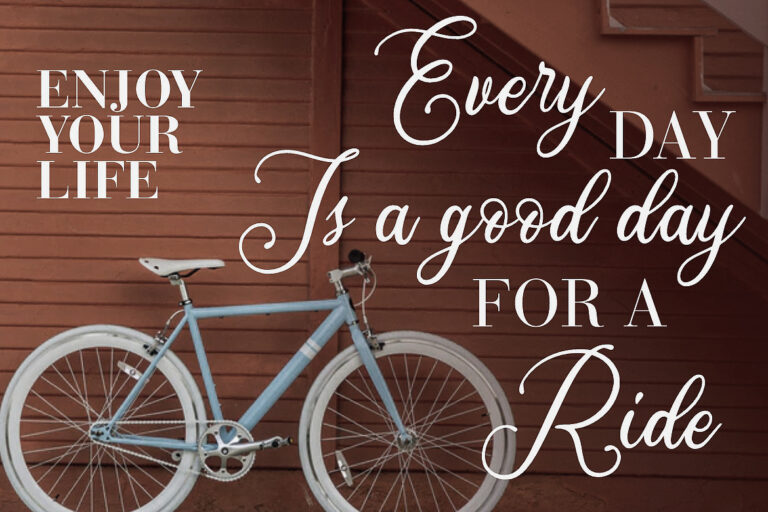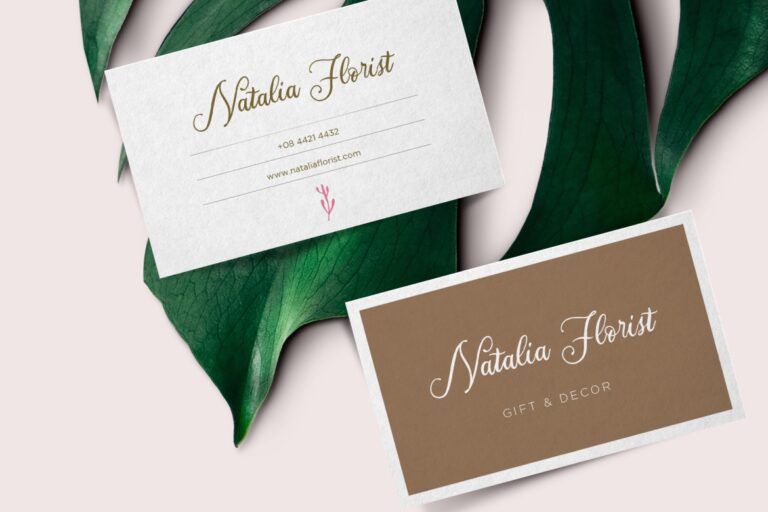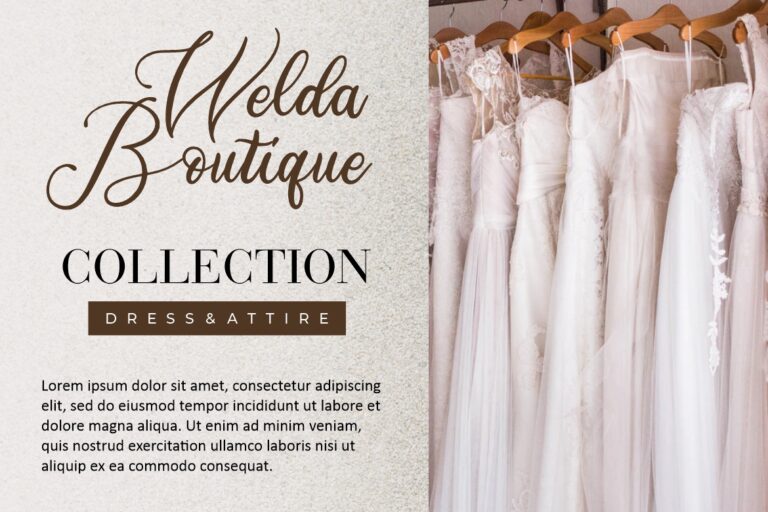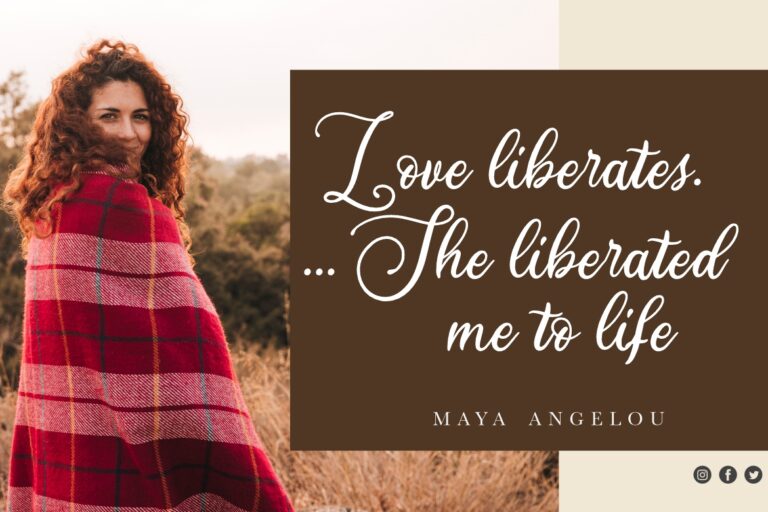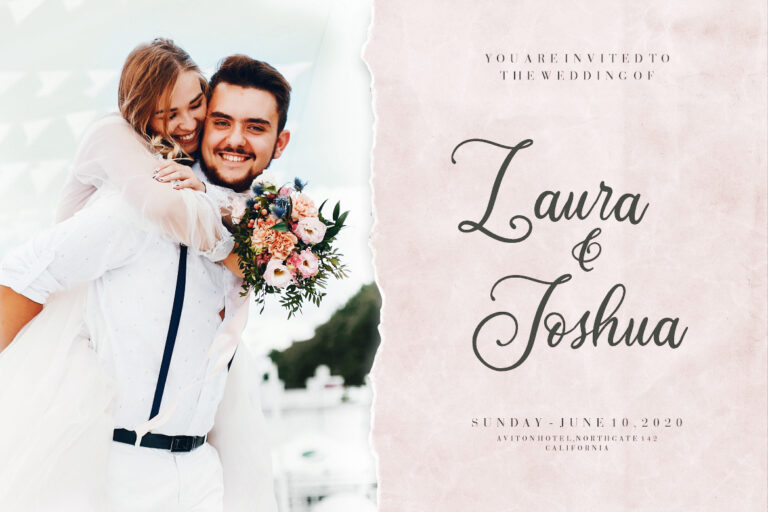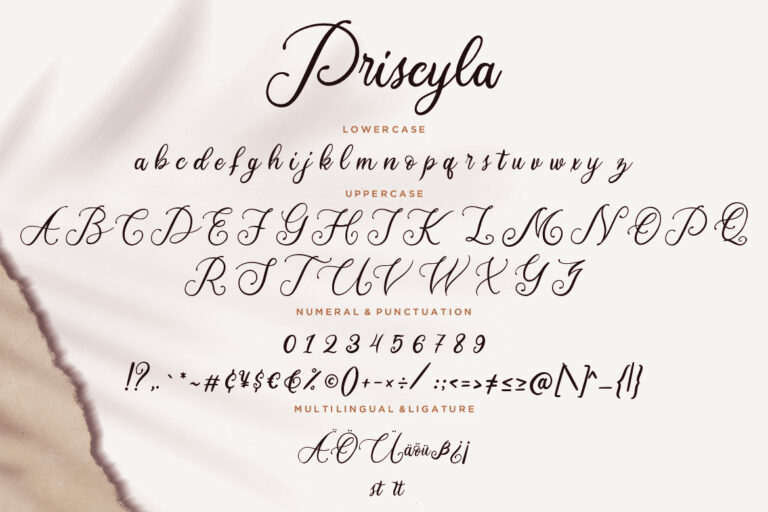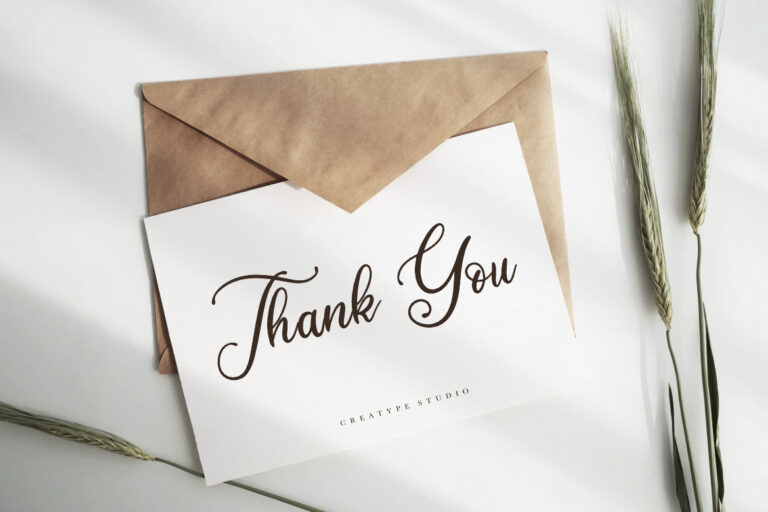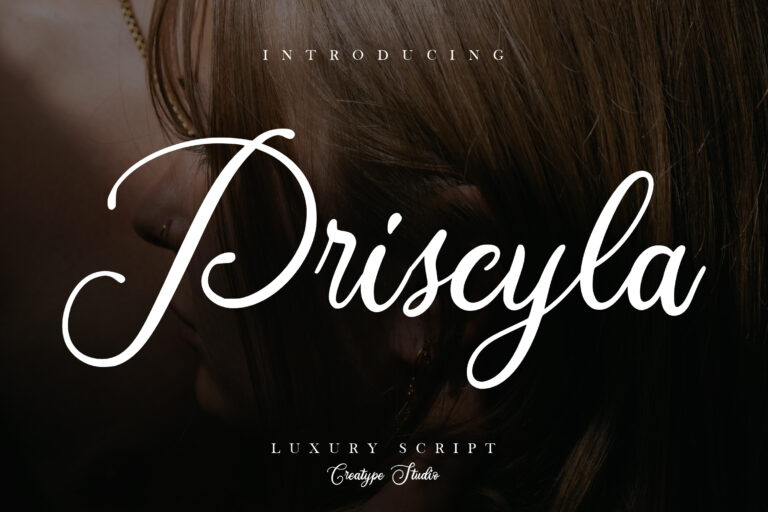
Priscyla is luxury script font looks elegant and classy that perfect for your latest amazing project.
Priscyla is perfect for branding projects, logo, wedding designs, social media posts, advertisements, product packaging, product designs, label, photography, watermark, invitation, stationery and any projects that need handwriting taste.
• Standard glyphs
• Ligature
• Fonts include multilingual support for; ä ö ü Ä Ö Ü ß ¿ ¡
Priscyla Luxury Script